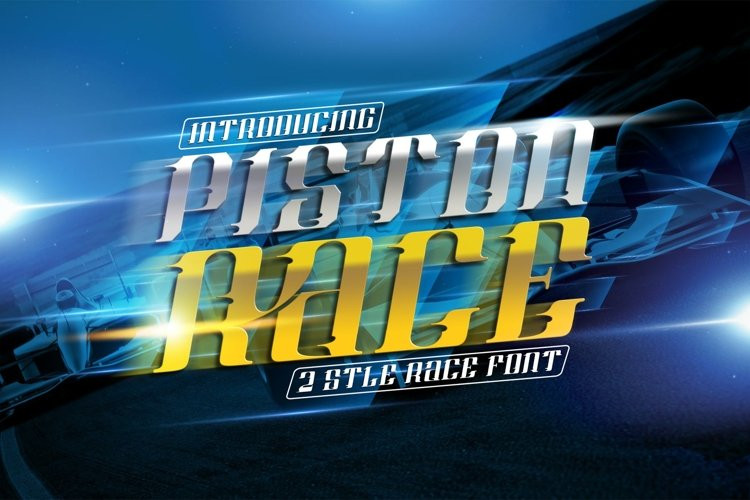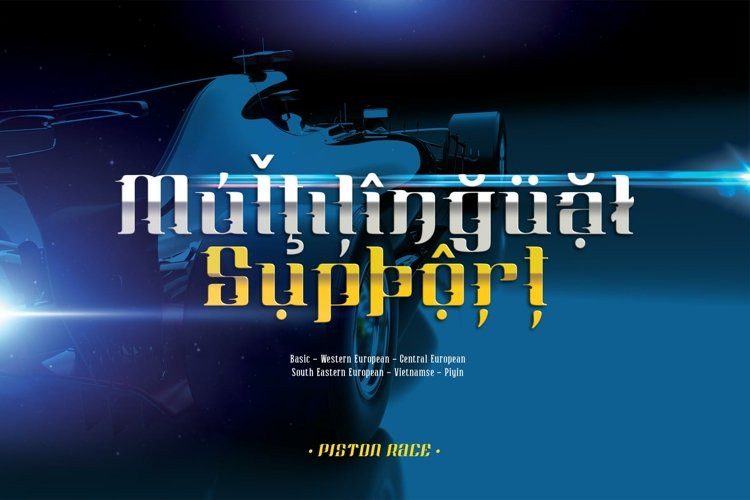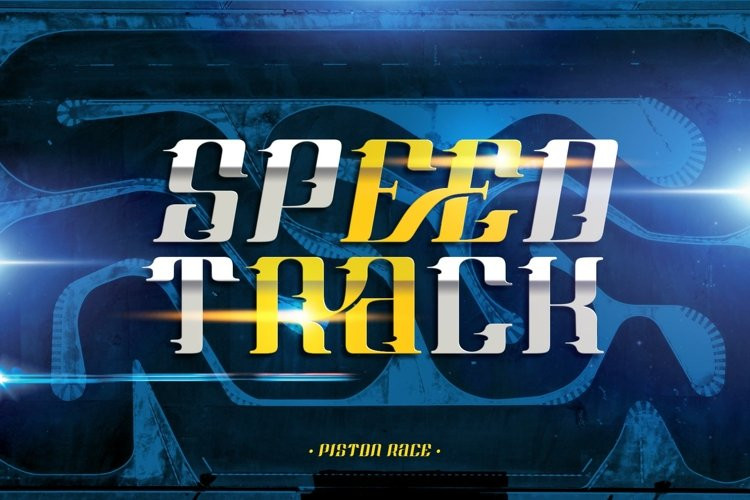
Piston Race Font
Piston Race FontThe Piston Race font  is inspired by the sporty racing display font. This bold and strong font with an impression of speed is perfect for making sports racing themed designs. Can be used for making logo designs, car stickers, racing event titles and so on with sport race themes.
In addition to the regular Piston Race, there is also an italic version which makes it look faster and cooler.